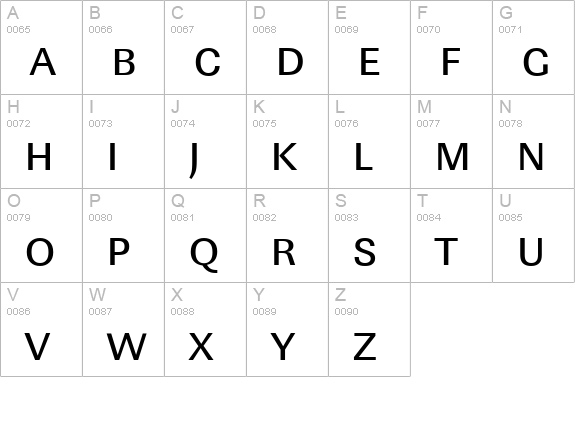
LinearStd-Medium-Regular is a balanced, medium-weight variant in the LinearStd typeface family \xE2\x80\x94 well suited to sub-headlines, navigation, and balanced editorial work.
LinearStd-Medium-Regular is a versatile and modern font that exudes sophistication and elegance. With its clean lines and balanced proportions, this typeface is perfect for a wide range of design projects, from branding to editorial layouts. Its medium weight strikes the perfect balance between readability and impact, making it suitable for both display and body text. What sets LinearStd-Medium-Regular apart is not just its aesthetic appeal, but also its accessibility. This high-quality font is available for free download at FontsMarket.com, allowing designers and creatives to easily access and utilize it in their work without any cost. It offers a seamless user experience, whether used for print or digital applications. Whether you're looking to elevate your designs with a modern touch or searching for a reliable typeface for your projects, LinearStd-Medium-Regular is the perfect choice. Download it for free at FontsMarket.com and add a touch of sophistication to your work today.